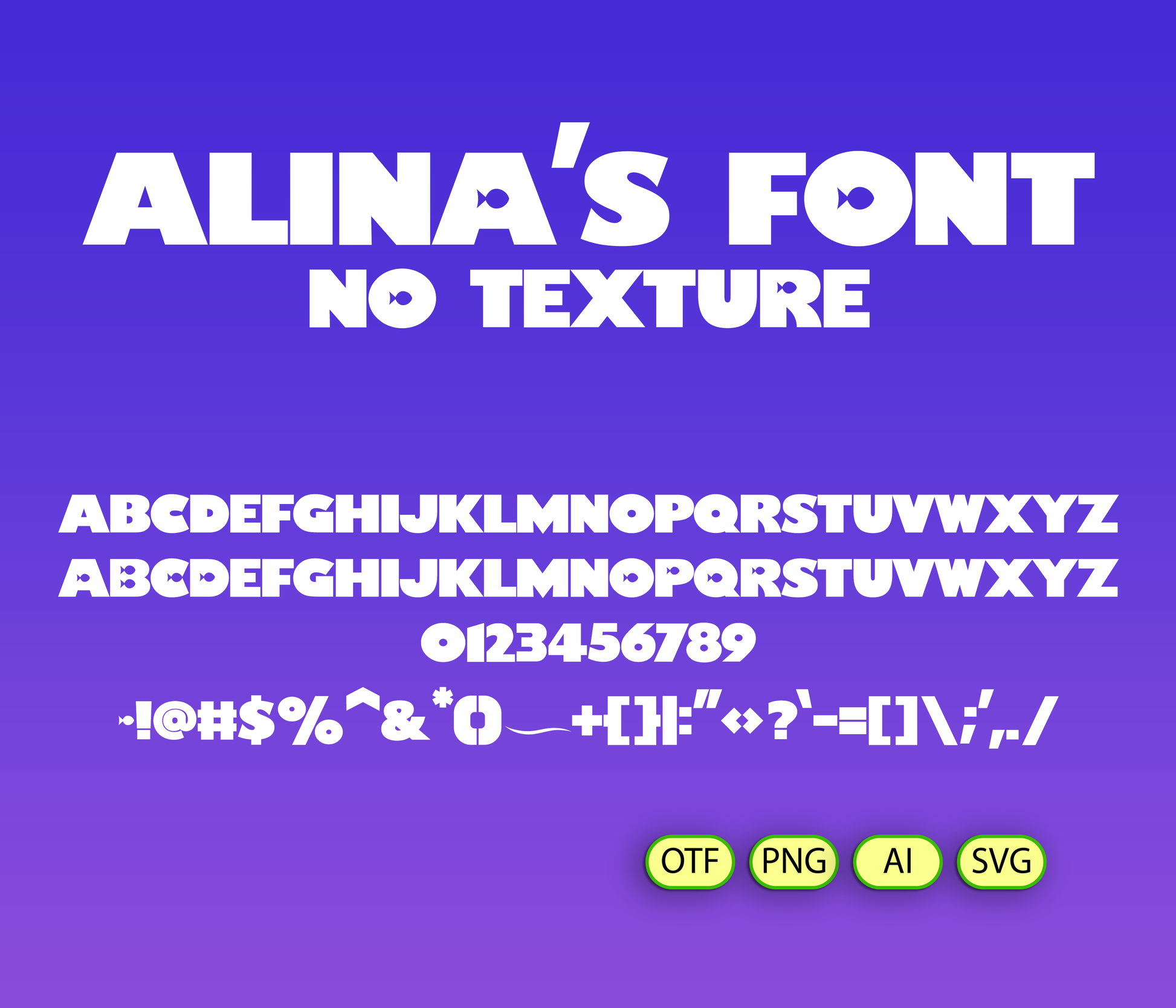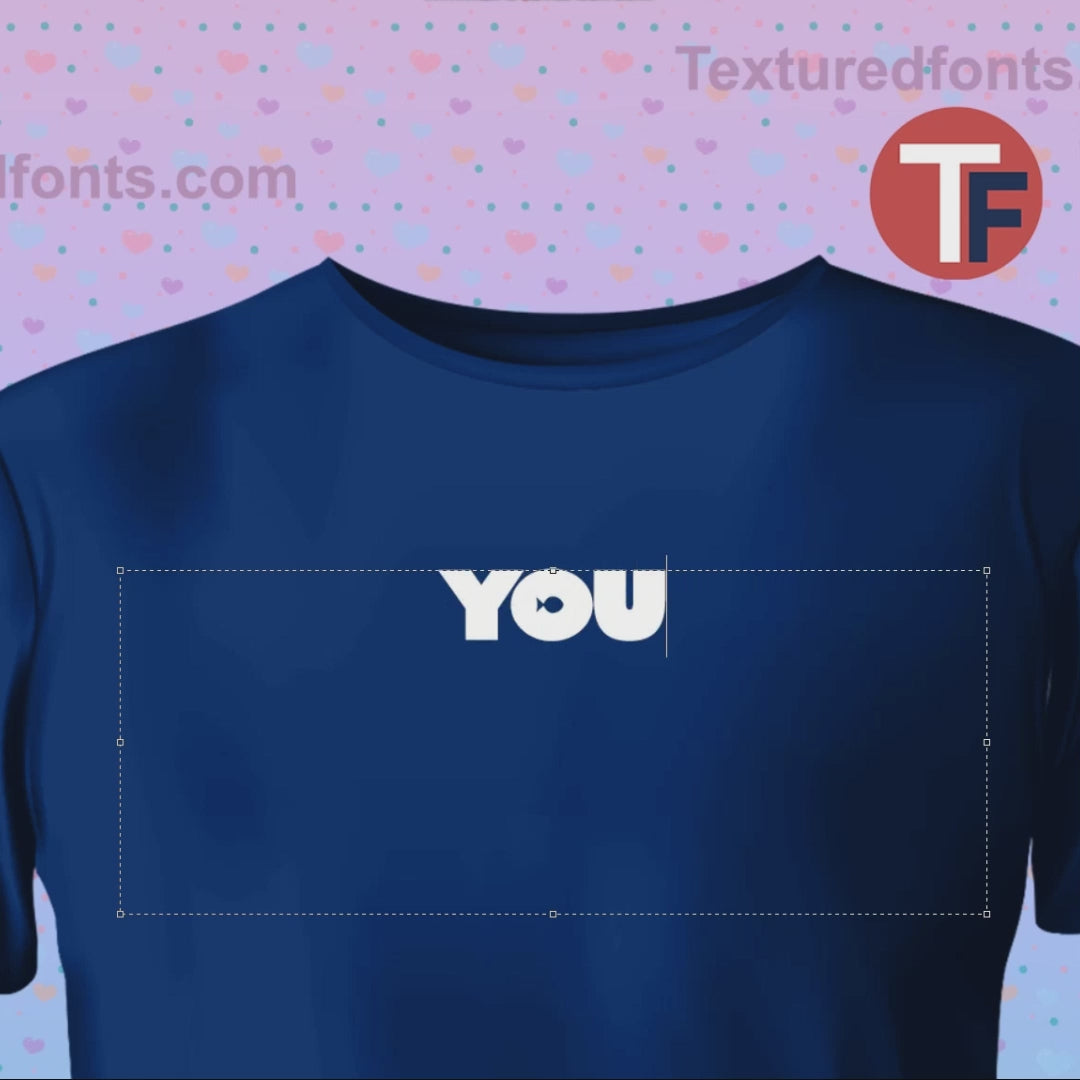
Ocean Odyssey Font
Dive into Creativity with the Ocean Odyssey Font
Immerse yourself in the underwater adventure of Ocean Odyssey with our specially designed font, inspired by the beloved animated film. Perfect for fans, event planners, and designers looking to add a touch of oceanic magic to their projects, this font captures the whimsical and vibrant spirit of Nemo, Dory, and their friends. Whether you're creating event invitations, designing themed merchandise, or crafting digital content, our Ocean Odyssey font ensures your projects resonate with the charm and excitement of the ocean world.
Our Ocean Odyssey-inspired font features smooth, flowing lines and playful, bubbly characters that reflect the underwater setting and the joyful, adventurous nature of the film. This versatile font is ideal for a variety of applications:
Our Ocean Odyssey font not only pays tribute to the enchanting film but also empowers you to infuse your designs with the playful and adventurous spirit of the ocean. Whether you’re crafting promotional materials, designing unique merchandise, or adding a touch of marine magic to personal projects, this font allows you to communicate with the joy and wonder that define Ocean Odyssey. Ready to dive deep into creativity? This font is your gateway to an ocean of imaginative possibilities.